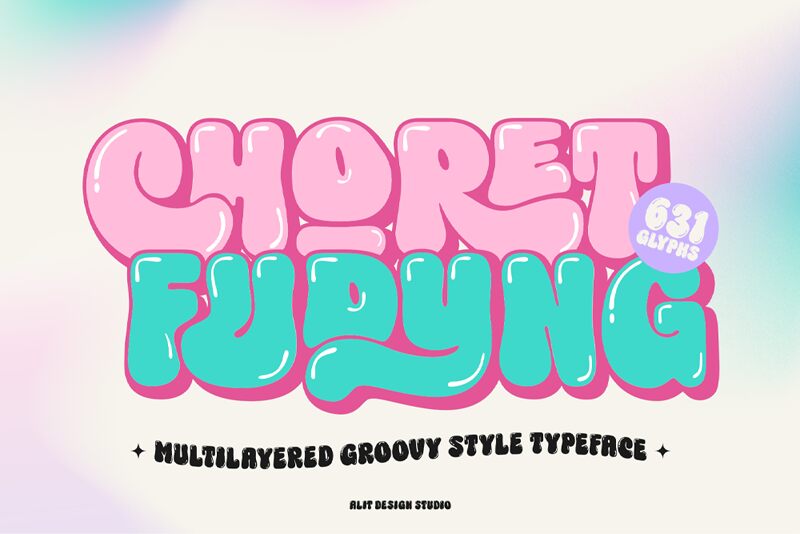
Choret Fudyng Bubble, a captivating display font crafted by Alit Design, exudes a delightfully groovy and bold aesthetic. This typeface's playful curves and bubbling strokes create a retro-inspired vibe, evoking a sense of whimsical charm and retro-futuristic flair. The bold weight and distinct personality of Choret Fudyng Bubble make it a standout choice for attention-grabbing designs, lending a unique character to headlines, logos, and other display-focused applications.
Choret Fudyng Bubble's versatility shines through, making it a versatile option for a wide range of design projects. Its bold and expressive nature lends itself well to creating eye-catching branding, energetic event posters, or vibrant packaging designs. The font's distinctive style also has the potential to elevate creative projects, adding a touch of vintage-inspired flair to everything from album covers to retro-themed websites.
Choret Fudyng Bubble